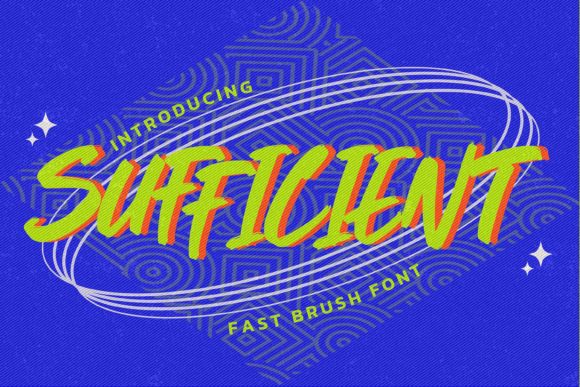
Embark on a typographic journey with Sufficient Font, a captivating display font family designed to ignite the spirit of wanderlust and evoke the essence of faraway lands. Immerse yourself in creativity as you explore the boundless possibilities of this remarkable font, meticulously crafted by Gassstype Studio.
With its cool, brushed strokes and playful demeanor, Sufficient Font is the ultimate companion for crafting travel posters that burst with vibrancy and adventure. Its strokes dance across the page, capturing the thrill of exploration and igniting the imagination. Let your designs transport viewers to exotic destinations, serene beaches, and bustling cityscapes.
Discover the versatility of Sufficient Font, a font family that adapts seamlessly to any creative project. Its bold, eye-catching presence commands attention and captivates audiences across a variety of applications. Whether you're creating stunning logos, eye-catching social media graphics, or compelling marketing materials, Sufficient Font will elevate your designs and leave a lasting impression.
Harness the power of Sufficient Font to communicate your message with clarity and impact. Its distinct character adds a touch of whimsy and playfulness, making it an ideal choice for projects that demand a lighthearted and engaging tone. Let Sufficient Font infuse your words with a sense of adventure and discovery, inviting readers to embark on an unforgettable journey.
Unlock the full potential of Sufficient Font and transform your creative vision into reality. Experience the joy of crafting designs that resonate with your audience and leave a lasting impression. Elevate your typography game and embark on a design adventure with Sufficient Font, the font that ignites the wanderlust within.